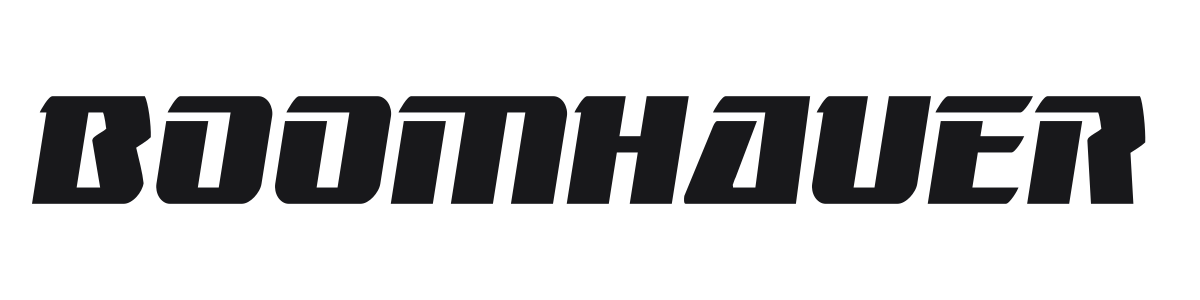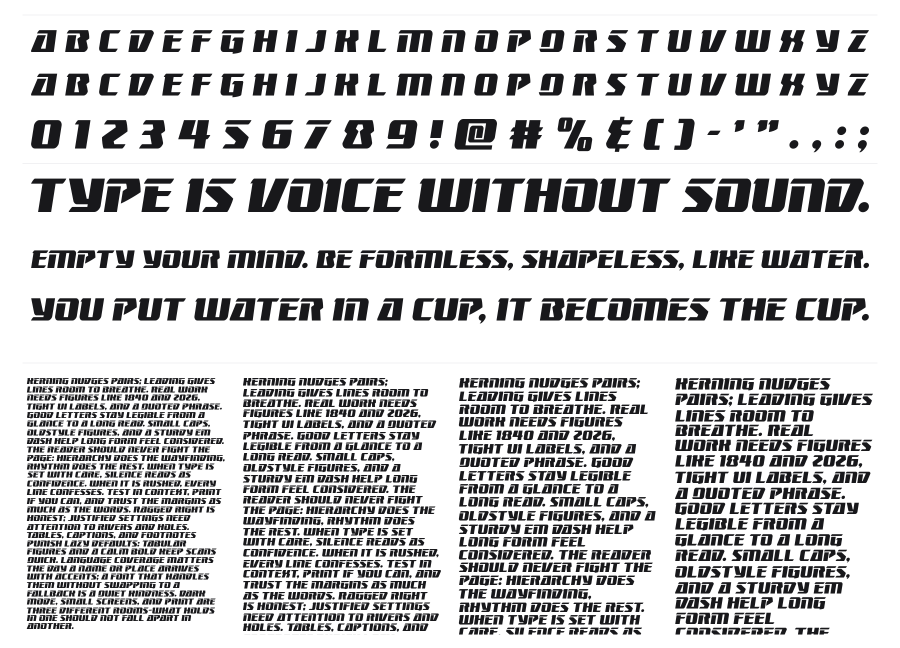
Boomhauer
Boomhauer is a bold condensed italic display font with sharp angles and a retro-futuristic attitude. Notched joints, flat terminals, and a strong forward slant give it the feel of 1970s science fiction and action movie titles. It reads loud and fast at headline sizes.